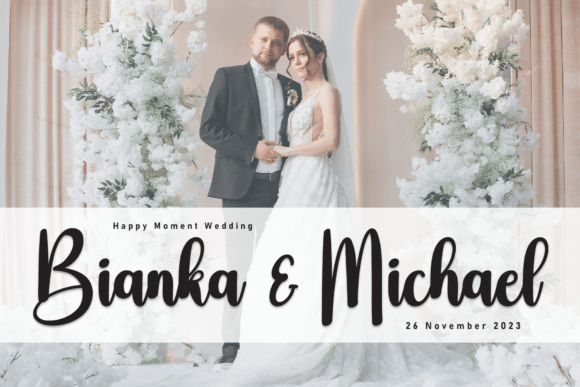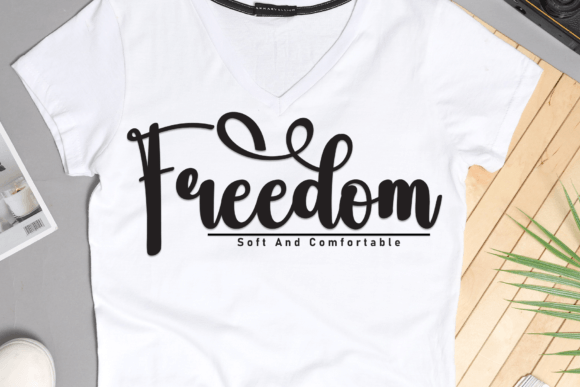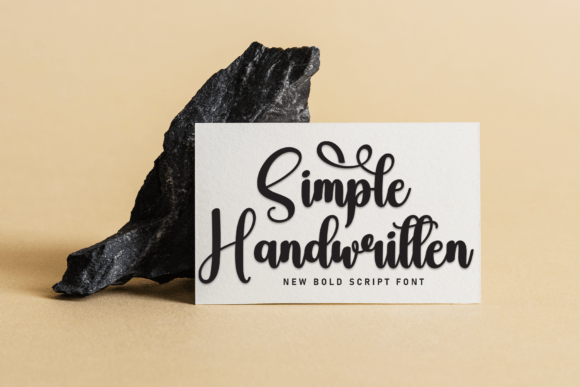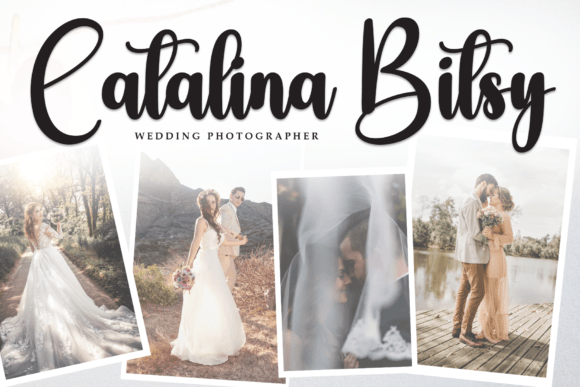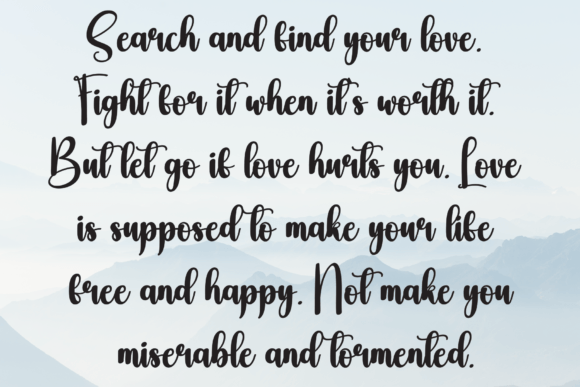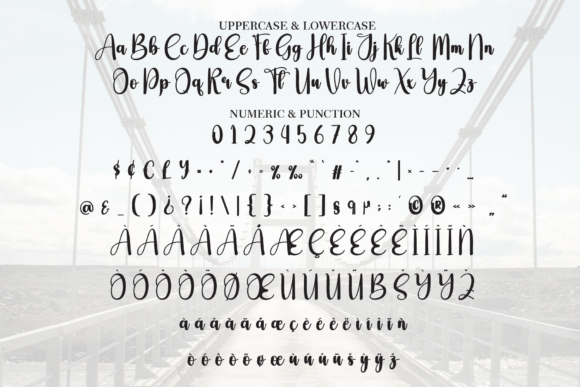
Discover the Elegance of Bridge Font: A Timeless Handwritten Script
Are you on the lookout for a font that exudes elegance and sophistication? Look no further than Bridge Font, a beautiful, flowing handwritten script that is sure to capture your heart. With its incredibly distinct and timeless style, Bridge Font is the perfect addition to any design project, from crafting and scrapbooking to graphic design and digital art.
The Characteristics of Bridge Font
Bridge Font is a handwritten script font that boasts an elegant touch, making it ideal for designers and crafters who want to add a touch of sophistication to their work. The font features:
- Flowing script: Bridge Font has a smooth, flowing script that is reminiscent of traditional calligraphy.
- Elegant touch: The font’s elegant touch makes it perfect for projects that require a high level of sophistication.
- Distinct style: Bridge Font has an incredibly distinct style that sets it apart from other fonts.
- Timeless appeal: The font’s classic design ensures that it will remain timeless and relevant for years to come.
Uses for Bridge Font
Bridge Font is a versatile font that can be used in a variety of projects, including:
- Graphic design: Use Bridge Font to create stunning graphic designs, from logos and branding materials to social media graphics and advertisements.
- Crafting and scrapbooking: Add a touch of elegance to your crafting and scrapbooking projects with Bridge Font.
- Digital art: Bridge Font is perfect for digital artists who want to create beautiful, elegant artwork.
- Wedding and event planning: Use Bridge Font to create beautiful wedding invitations, programs, and other event materials.
Why Choose Bridge Font?
So why choose Bridge Font over other fonts? Here are just a few reasons:
- Unique style: Bridge Font has a unique style that will set your projects apart from others.
- Elegant and sophisticated: The font’s elegant and sophisticated design makes it perfect for projects that require a high level of refinement.
- Easy to read: Despite its elegant design, Bridge Font is easy to read, making it perfect for body text and other applications where readability is important.
- Versatile: Bridge Font can be used in a variety of projects, from graphic design and crafting to digital art and wedding planning.
Tips for Using Bridge Font
Here are a few tips for using Bridge Font in your projects:
- Use it sparingly: Bridge Font is a elegant and sophisticated font, so use it sparingly to avoid overwhelming your design.
- Pair it with other fonts: Bridge Font pairs well with other fonts, so don’t be afraid to experiment with different font combinations.
- Experiment with colors: Bridge Font looks beautiful in a variety of colors, so experiment with different colors to find the one that works best for your project.
- Pay attention to spacing: Make sure to pay attention to spacing when using Bridge Font, as it can affect the overall look and feel of your design.
In conclusion, Bridge Font is a beautiful, elegant handwritten script font that is perfect for designers and crafters who want to add a touch of sophistication to their projects. With its incredibly distinct and timeless style, Bridge Font is sure to capture your heart and become a go-to font in your design arsenal.